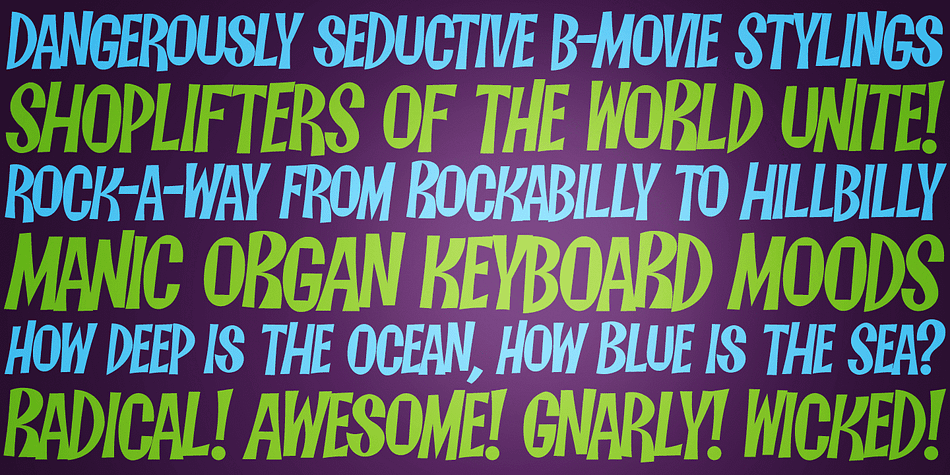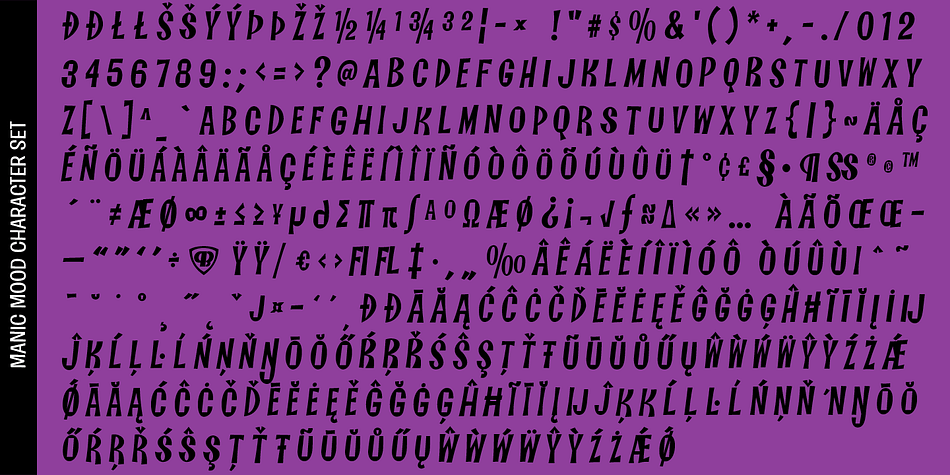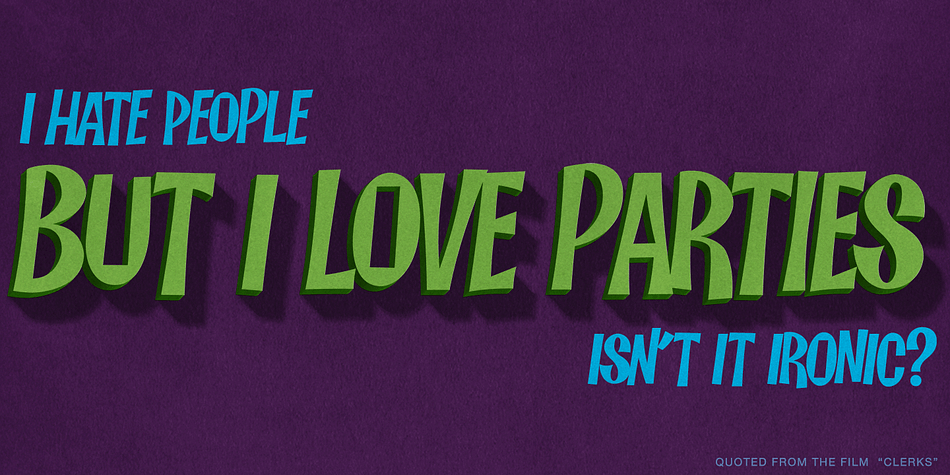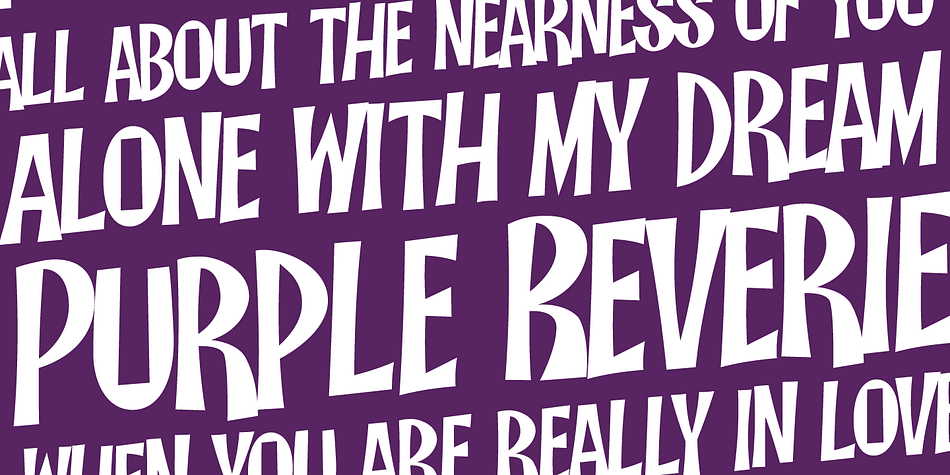
Designed by Phil Bracco, Manic Mood PB is a hand display and kids font published by Pink Broccoli.
An offbeat alternate caps typestyle inspired by the cover of a vintage LP titled, Organ Moods by Jerry Thomas. A playful and childish font from a sexy cheesecake album! Go figure.
Switching on Contextual Alternates enables automatic alternations between caps and alt caps like AlTeRnAtIoNs to create a more randomized look.